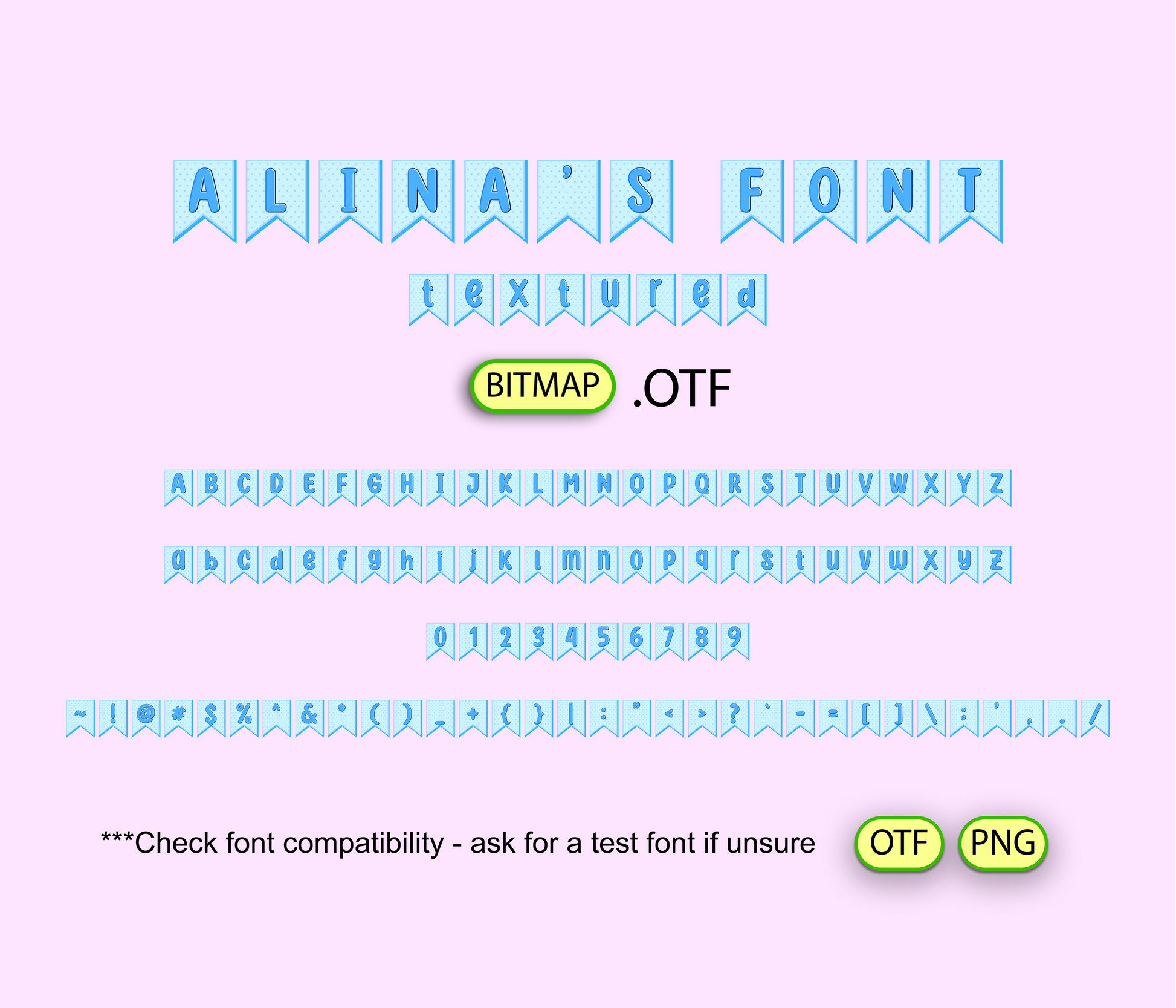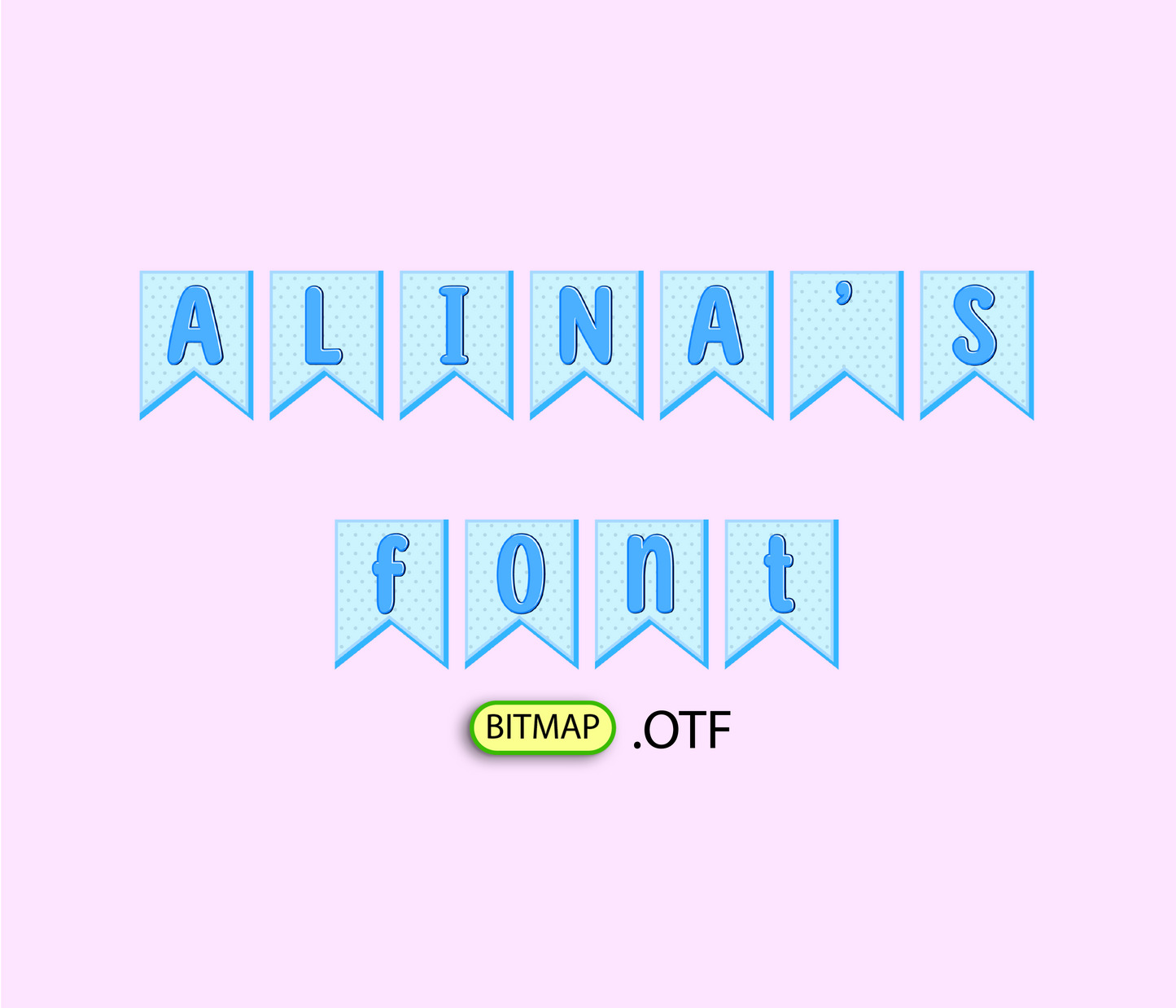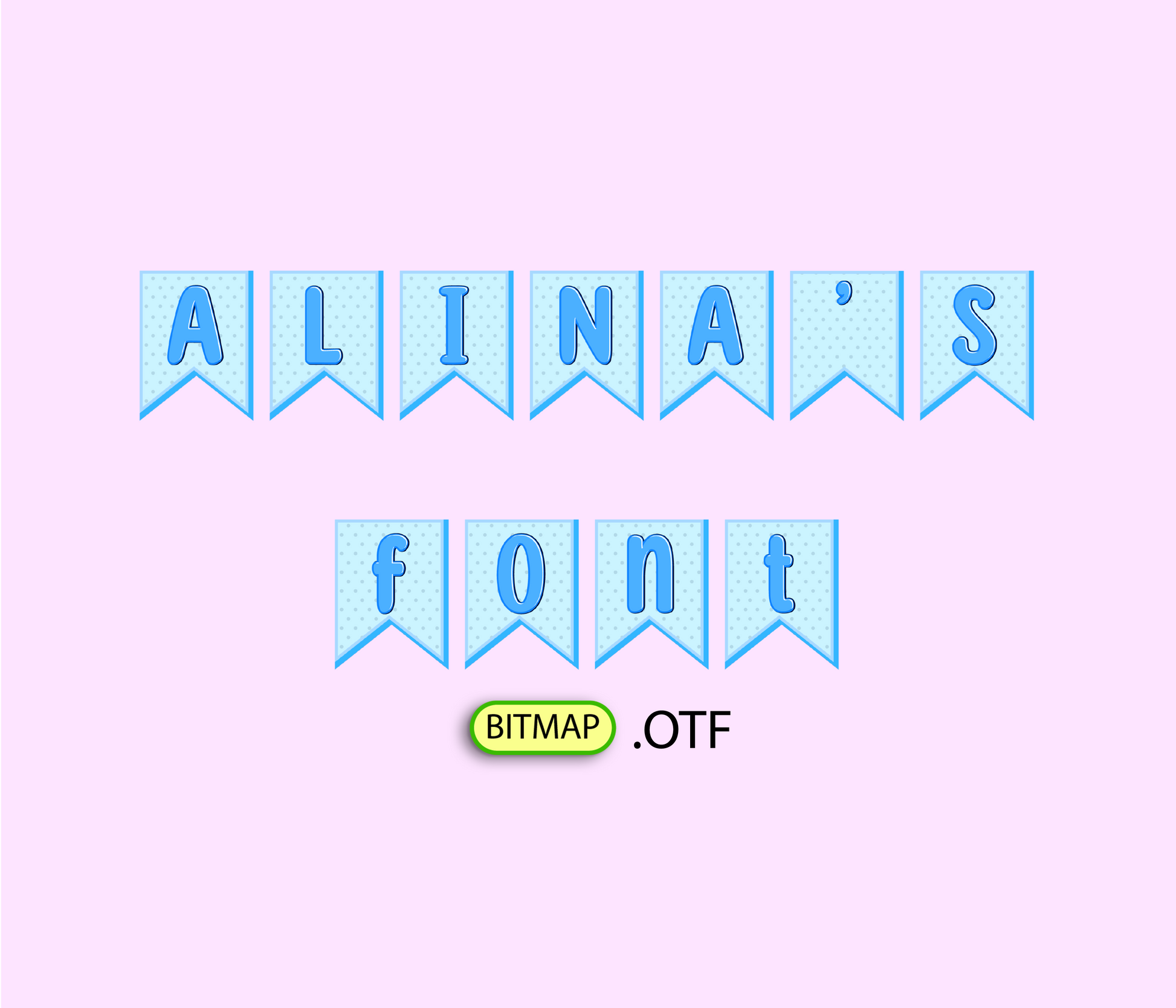
Champion Dad Banner Font Textured
Step into the roaring stands of sideline fatherhood glory, joyful baby boy sports beginnings, and triumphant family celebration culture with our Champion Dad Font Textured, capturing the essence of victory lap paternal pride, little boy champion beginnings, and legendary sporting family festivity narratives. Perfect for Father's Day sports celebration planners, boy baby shower hosts, athletic family event coordinators, little boy sports party designers, and dynamic design specialists, this font brings the bold, victory-charged character of beloved sporting champion dad and baby boy celebration storytelling to your projects. Create trophy-worthy invitations, commercial goods, or web content with the triumphant presence of sideline dad champion and newborn boy festivity narratives.
Triumphant Typography for Father's Day, Boy Baby Shower & Little Boy Sports Party Projects
Our Champion Dad Font Textured features bold, celebration-banner letterforms nestled in festive pennant flag shapes with victory-charged sporting textures reflecting the world of legendary sideline fathers, newborn boy sports welcome festivities, and iconic paternal sporting family dedication.
- Event Promotions: Craft trophy-worthy invitations, banners, and party decorations for Father's Day sports celebrations, boy baby shower gatherings, little boy sports birthday parties, and family athletic events that radiate the triumphant warmth of legendary sporting champion dad and baby boy festivity entertainment
- Merchandise Design: Perfect for apparel, nursery wall prints, adhesive graphics, party favors, and sports collectibles that showcase the dynamic aesthetic of victory lap pride, newborn boy sports welcome, and paternal sporting champion dedication themes
- Digital Media: Score big on websites, content channels, and social platforms with triumphant header designs and imagery that express the victory wonder of legendary Father's Day sporting champions, boy baby shower announcements, and little boy sports party celebrations
- Creative Content: Add signature victory and baby boy sports flair to dad illustrations, shower artwork, and imaginative projects inspired by beloved sideline champion sporting dad and newborn boy welcome chronicles
- Personal Projects: Cheer paternal sporting pride and baby boy joy into memory albums, handcrafted gifts, nursery decorations, and living space items inspired by the world of legendary sporting champion dad and newborn boy celebration characters
Our font pays tribute to the world of sporting victory wonder, newborn boy celebration culture, and generation-spanning paternal sporting champion dedication, empowering your projects with its bold and victory-charged triumphant character. Whether crafting Father's Day materials, designing boy baby shower décor, creating little boy sports party supplies, or adding a sideline champion touch to personal projects, this font communicates the dynamic essence of family sporting celebration magic. Ready to score paternal and baby boy champion glory into your creations? This font is your key to attention-grabbing, impactful design.